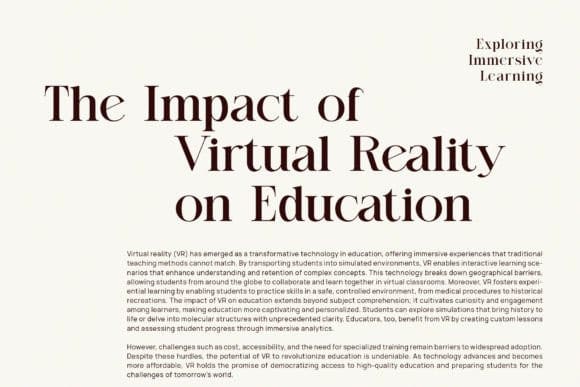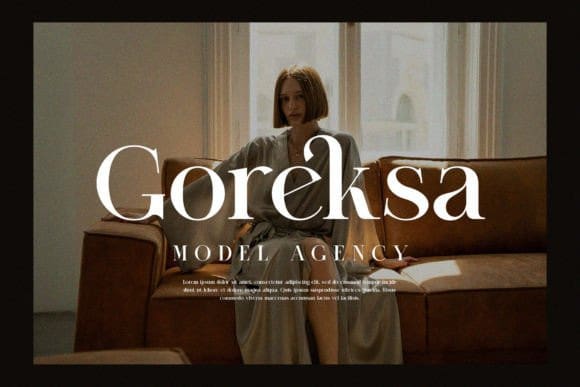
Nigesta Font
Nigesta Font is an elegant serif typeface. Perfect for designing business cards, letterheads, and other stationery that require a refined and polished look.